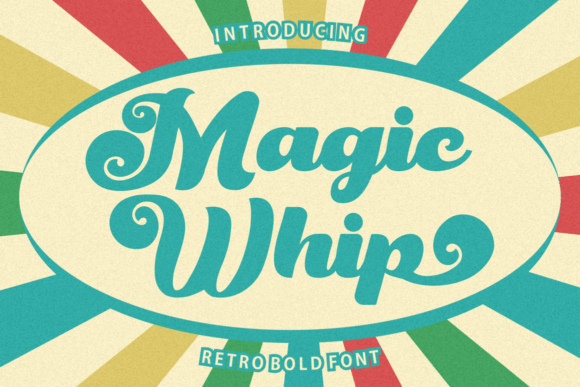
Introducing the Magic Whip Retro Script Bold Font, the ultimate choice for credit titles and beyond! This font, created by putracetol, is not your ordinary script font - it's a thick and groovy masterpiece that will transport you back to the iconic design styles of the 70s and 80s. Prepare yourself for a wave of nostalgia as you explore the endless possibilities this font has to offer.
With its wide range of alternative characters, Magic Whip allows you to unleash your creativity and customize your designs to perfection. Whether you're working on a logo, brand name, title, headline, poster, or quote, this font will infuse your project with a touch of retro flair and bold style. It's like having a time machine at your fingertips!
But what sets Magic Whip apart from other fonts? It's the perfect blend of functionality and style. Not only does it capture the essence of the past, but it also keeps up with the demands of modern design. Each character is meticulously crafted to ensure legibility and visual impact, making it a versatile choice for any project.
One of the standout features of Magic Whip is its PUA encoding. What does this mean for you? It means easy access to a treasure trove of amazing glyphs and ligatures that will elevate your designs to new heights. With just a few clicks, you can unlock a whole new world of creative possibilities.